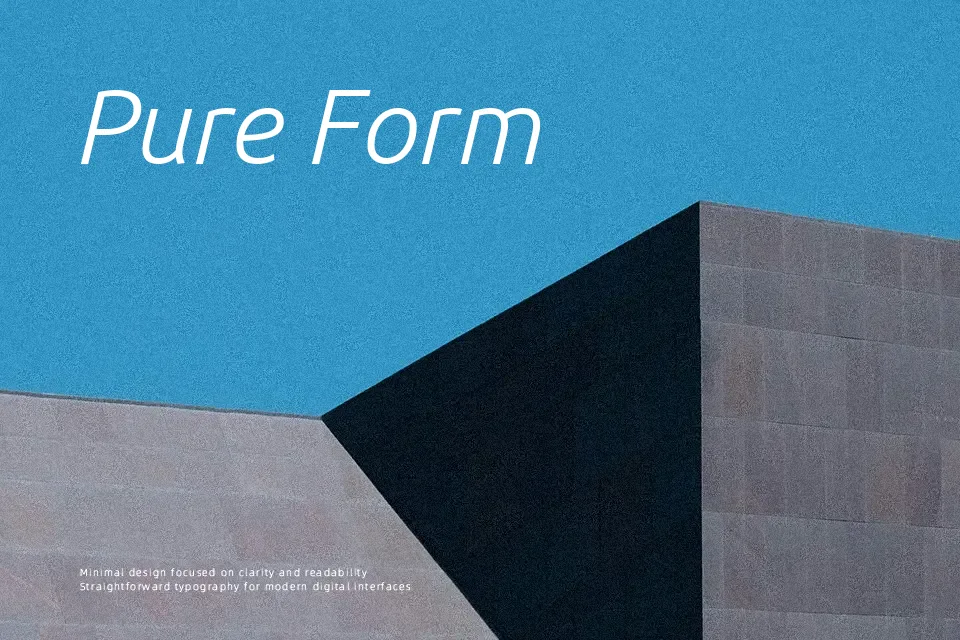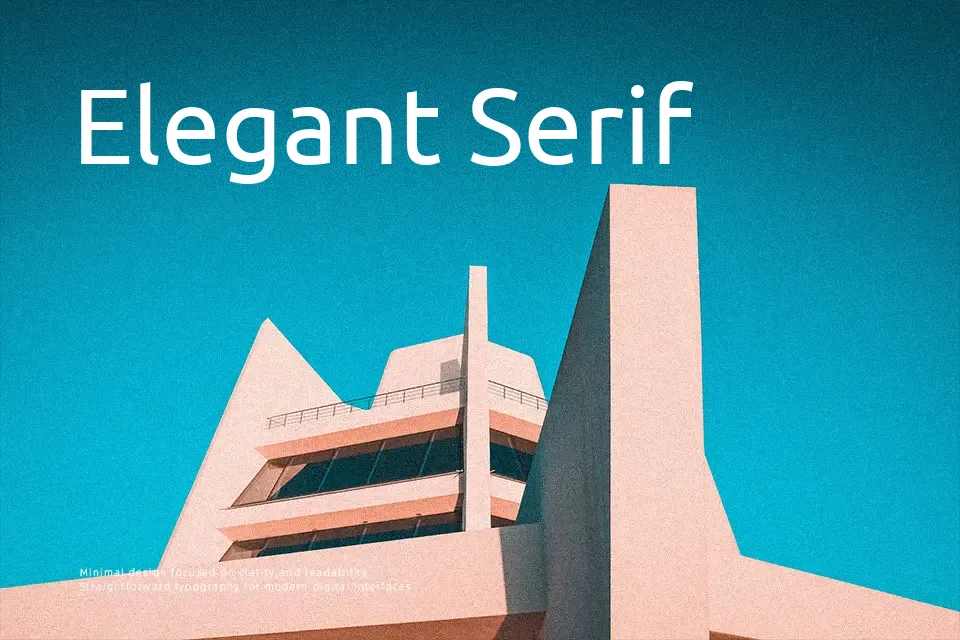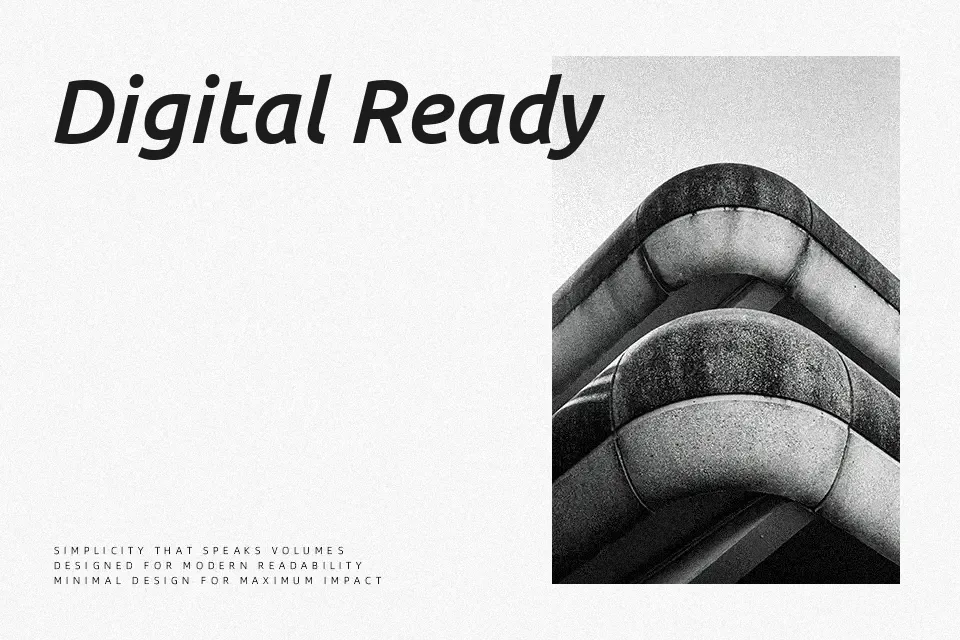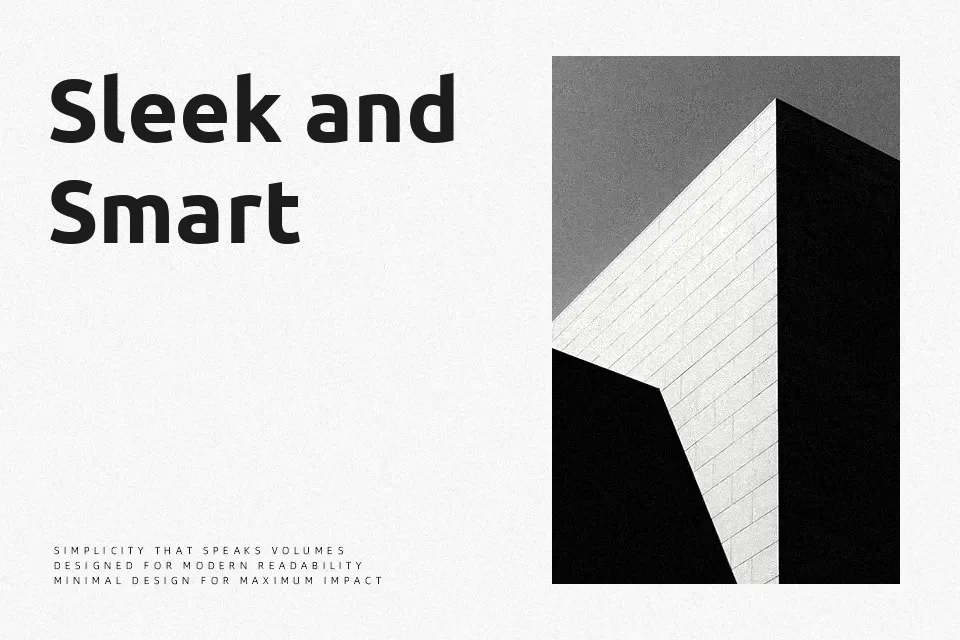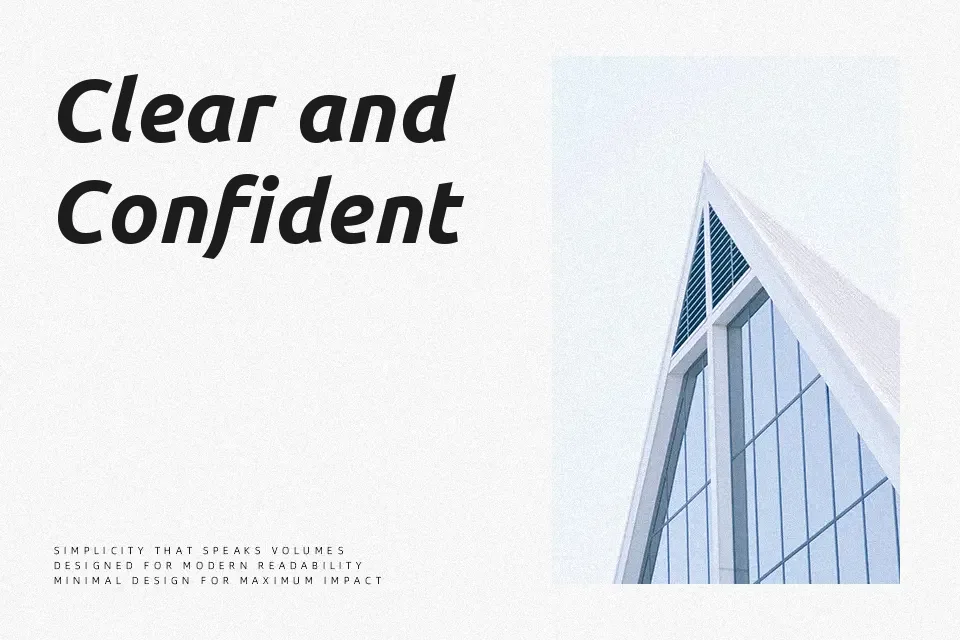
Ubuntu Font
Designed by Dalton Maag
Ubuntu is a contemporary humanist sans serif with gently curved strokes, open apertures, and a steady x-height that keeps text readable even at smaller sizes. The weights feel even and controlled, with just enough personality in the terminals and curves to avoid looking sterile. It carries a modern, professional tone that suits UI design, app interfaces, documentation, and brand systems that prioritize clarity over flashiness. However, its ubiquity and neutral voice can make it less memorable for highly expressive logos or character-driven editorial headlines where a more distinctive serif or display face would stand out better.
operating system and app interfaces
product dashboards and web apps
technical documentation and help centers
brand systems that favor clarity and neutrality
highly expressive logo wordmarks
decorative editorial headlines
playful kids or craft-themed designs
Perfect for body text, branding, and headline, with a clean and geometric style.